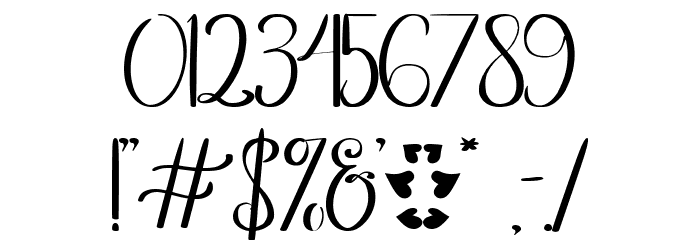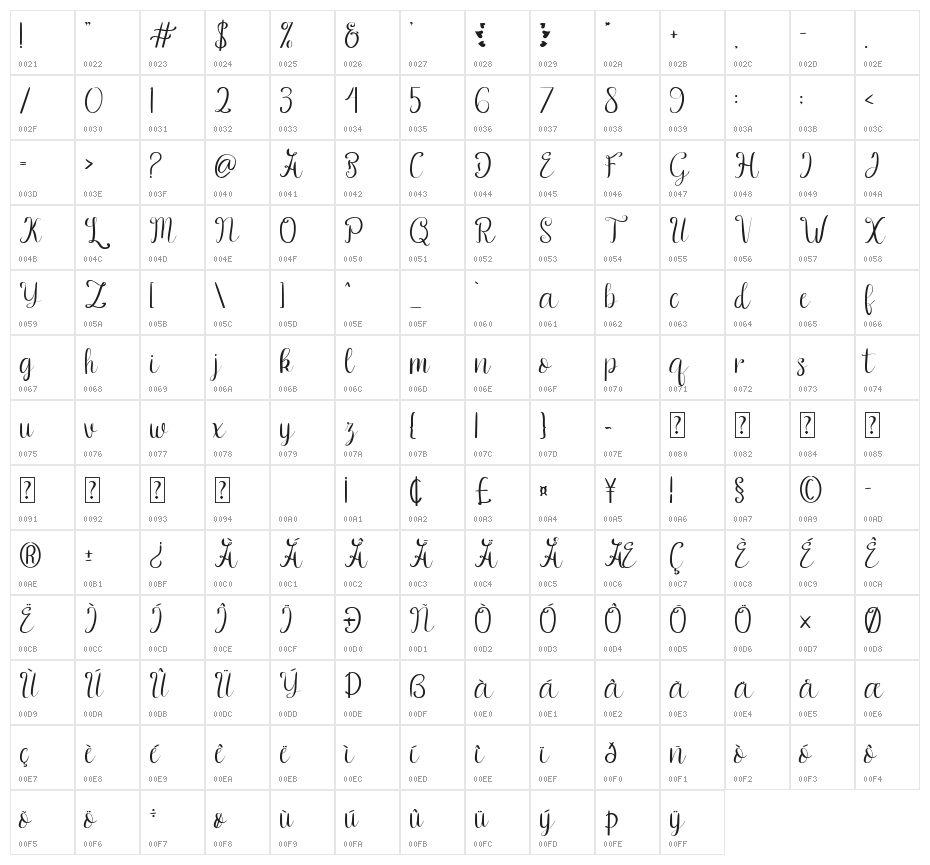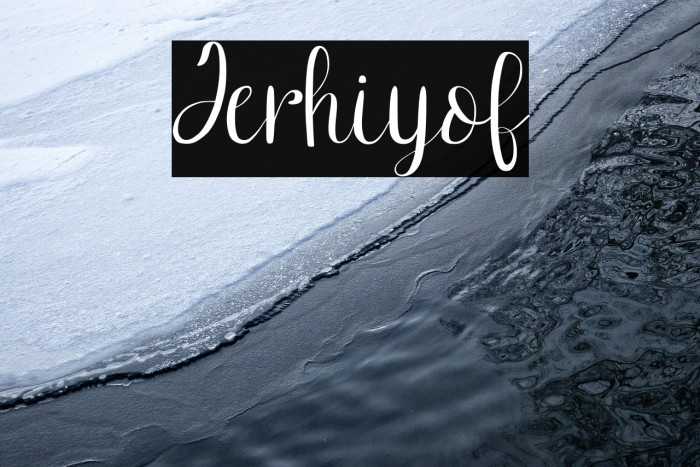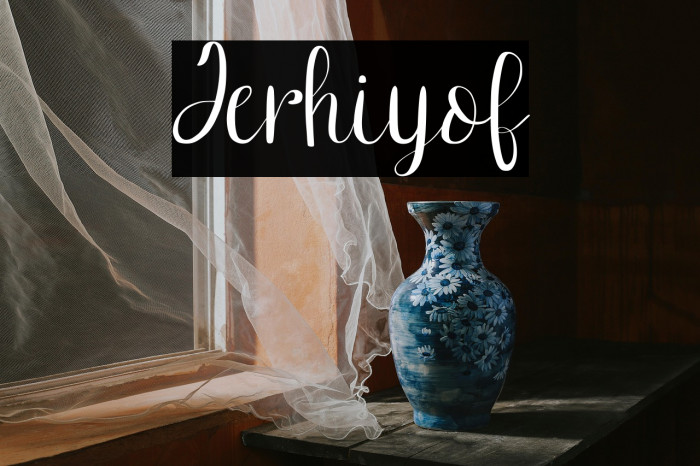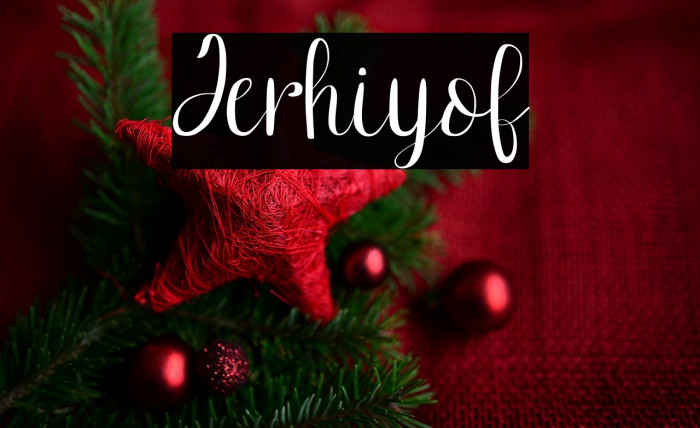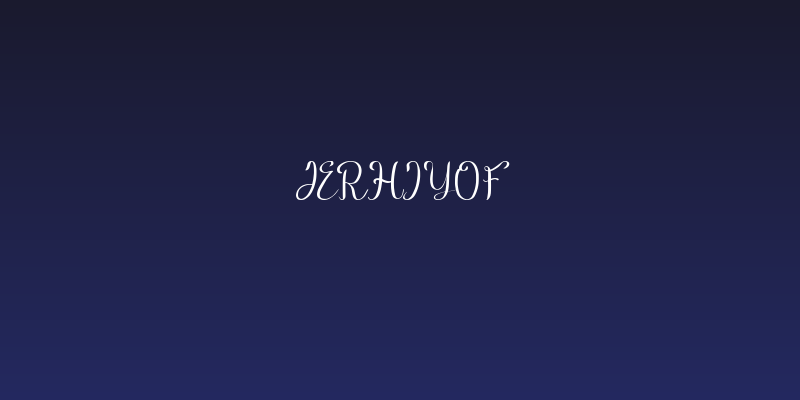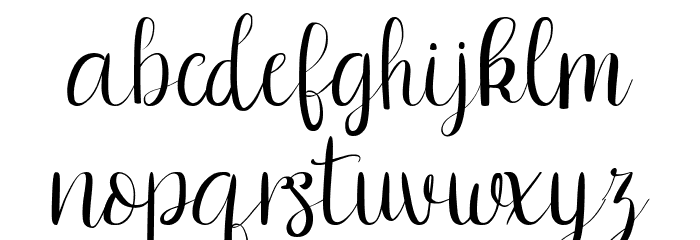
Jerhiyof Font
Jerhiyof Description
This font features an elegant and flowing script style, characterized by its graceful curves and loops. The uppercase letters exhibit a sophisticated flair with extended strokes and swashes, while the lowercase letters maintain a consistent, smooth flow. The numerals are designed with a similar elegance, ensuring uniformity across all characters. Special characters are creatively integrated, adding a touch of whimsy to the overall design. The font's aesthetic is both classic and modern, making it versatile for various applications.
| Overall Style | Elegant, Modern |
| Use Case | Headlines, Invitations, Logos |
| Proposed Projects | Ideal for wedding invitations, greeting cards, branding, and logo design. |